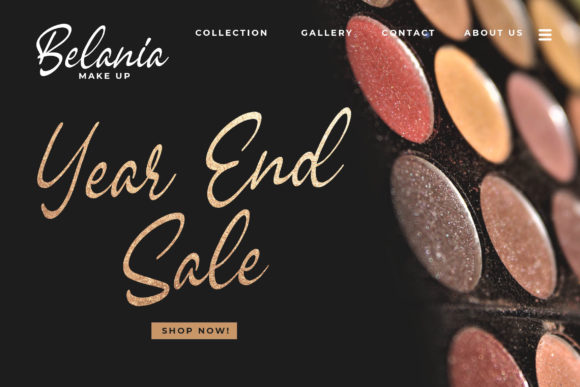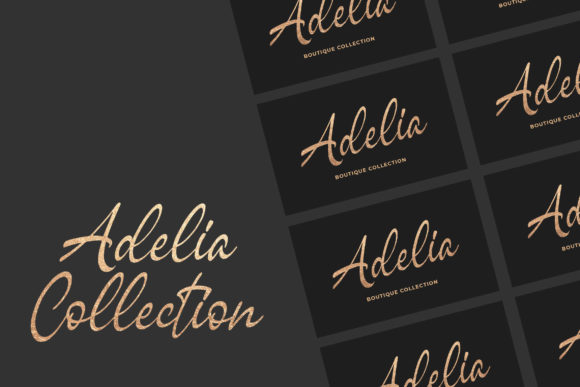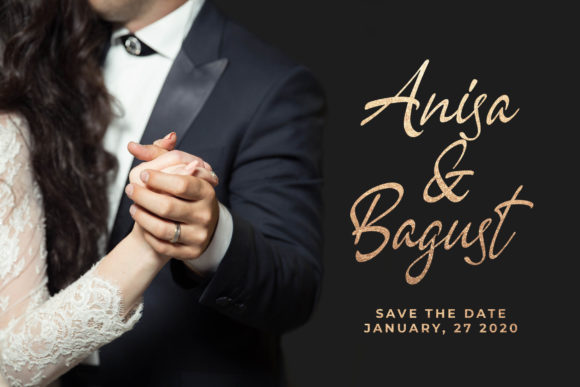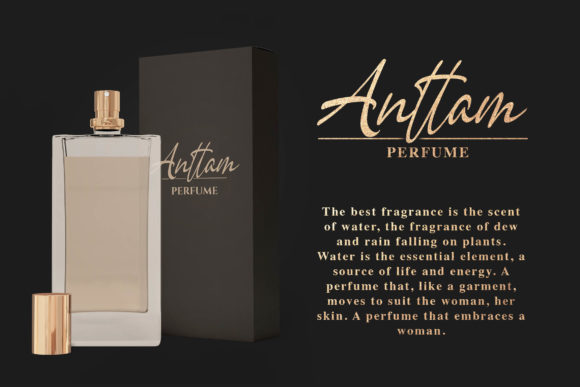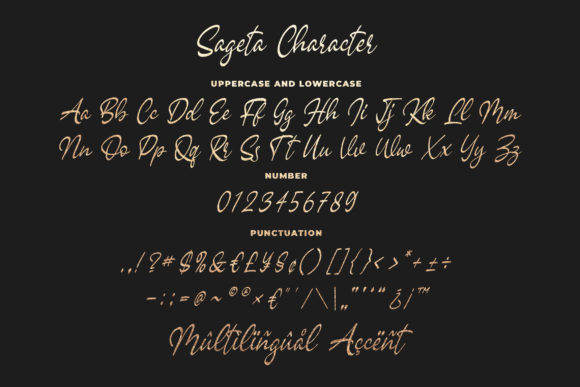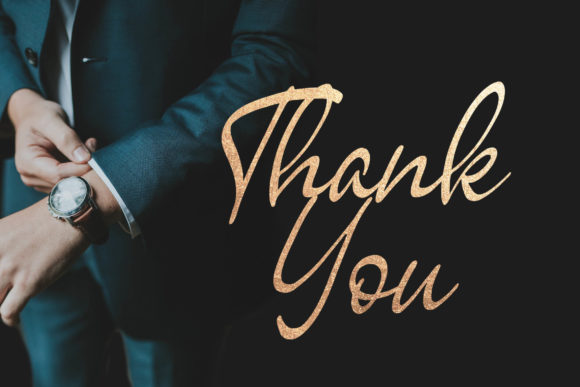
Introduction to Sageta Font
As designers, we’ve all been there – staring at a blank canvas, waiting for inspiration to strike. It’s in these moments that the right font can be the catalyst for a creative project to come alive. And when that font is the luxurious Sageta Font, the possibilities are endless.
With its elegant script and sophisticated style, Sageta Font radiates luxury and beauty, making it the perfect design resource for any project. Whether you’re working on a high-end branding campaign or a romantic wedding invitation, Sageta Font is sure to elevate your design to the next level. And the best part? This stunning font is available for free download, making it a valuable addition to any designer’s toolkit.
- Unique characteristics include a modern, elegant design and a wide range of typography options.
Honest Review: Sageta Font
As a designer, I’m always on the lookout for high-quality design resources that can elevate my creative projects. The Sageta Font is one such resource that caught my attention.
Here are some things that work well: ✨
- Unique and elegant design style that can add a touch of sophistication to any project
- High-quality vector format that ensures crisp and clear rendering even on transparent backgrounds
However, there are some limitations: ⚠️
- Only comes in a single weight, which may limit its versatility in certain design contexts
- Not as extensive as some other font libraries in terms of character set and language support
Overall, I’d say the Sageta Font is a solid addition to any designer’s toolkit, especially for those working on creative projects that require a touch of elegance and sophistication. While it may have some limitations, its unique design style and high-quality rendering make it a worthwhile resource to explore.
Alex Brush Font is a beautiful, high-quality script font ideal for creative projects that require elegance and sophistication. It’s a perfect choice for designers looking to add a touch of whimsy to their designs. When to use: Wedding invitations, branding materials, and other design projects that require a romantic feel.
Comparison to Sageta Font: Alex Brush Font has a more delicate and cursive feel, making it suitable for projects that require a softer, more feminine touch. While Sageta Font is more geometric and modern, Alex Brush Font is perfect for designs that need a touch of vintage charm.
Great Vibes Font is a fun, energetic script font that’s perfect for designers who want to add a playful touch to their projects. It’s a great choice for creative projects that require a carefree and adventurous feel. When to use: Travel brochures, event invitations, and other design projects that require a fun and lively atmosphere.
Comparison to Sageta Font: Great Vibes Font has a more casual and laid-back feel, making it suitable for projects that require a relaxed and approachable tone. While Sageta Font is more modern and sleek, Great Vibes Font is perfect for designs that need a fun and spontaneous vibe.